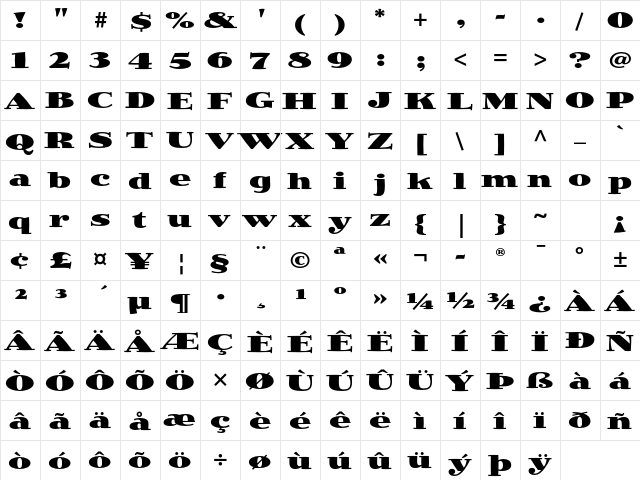
Jimbo Std Black Expanded
| Designer | Jim Parkinson |
Design Context for Jimbo Std Typeface
Jimbo Std is a composed and adaptable typeface that performs quietly and consistently across a wide range of design contexts.